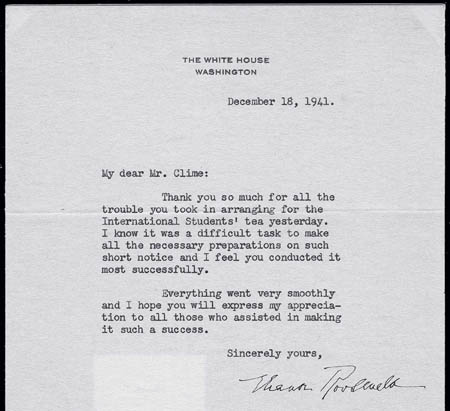
First line left indent question
(The reason I was searching for presidential letters is that I had a vague memory of seeing them previously with big indents.)
I wonder if making the indent larger than most or all of the “rags” sends the eye the message that “this is an intentional break, not an arbitrary byproduct of line lengths like those other spaces over there.”
Yes, something to that effect. It’s just that the uneven lines in FL/RR setting create a lot of visual noise on page… Especially loud when there are no word breaks, which causes a ‘hard rag’, or strongly uneven right edge of the column. Bordering on unbearable in those languages that have longer words than English. So a stronger signal may be necessary to indicate a paragraph break.
Okay, so I understand the reasoning now, but I don't find it compelling. Those 'other spaces over there' seems to me to have nothing to do with what is happening on the left margin, which is nothing out of the ordinary for normal reading. So why introduce something that is out of the ordinary? As for the ragged right producing visual noise on the page, I agree, and I think the deep indent on the left only increases that visual noise: it certainly seems to in the 1976 Olympics page spreads to which Maxim linked. I think one of the reasons why adding space between paragraphs and not indenting them became a popular solution for ragged right text is precisely because making a consistent left margin anchors the text better and reduces the noise. And, of course, Eric Gill's solution for ragged right setting in his essay on typography was to get rid of the paragraph breaks altogether and use a pilcrow instead. Again, I think this was to maintain a consistent left margin contra the variable rag.
Making the left margin more ragged than usual because the right margin is ragged seems exactly what one should not be doing.
> Indents are to separate paragraphs, and since there
> is no paragraph before the first (by definition), no
> indent is needed.
Another reason for not indenting the first paragraph is that visually it creates a weak start.
I rarely indent first paragraphs. Occasionally a client (or copy editor) will think it's an error, but after explaining my reasoning they've always dropped their objection.
> So why introduce something [large indent] that is out of the ordinary?
In some cases (not necessarily this one) it might be the designer thinking "this looks like the text in a zillion other printed pieces; how can I make it look a bit different?"
Frase, L. T. & Schwartz, B. J. (1979). Typographical cues that facilitate comprehension. Journal of Educational Psychology, 71(2), 197-206. doi: 10.1037/0022-0663.71.2.197
Abstract
Written sentences often contain several meaningful components (e.g., causes and effects or events in a sequence). Preliminary studies of technical documents showed that typographically segmenting these components improved raters' judgments of the comprehensibility of the information. In the present paper, this segmentation notion is generalized, suggesting that phrase segmentation and indentation can be used to facilitate comprehension. Five experiments were conducted (with a total of 72 college students or technical aides) in which Ss verified sentences by reading complex information in several technical passages. Meaningfully segmented and indented text resulted in 14–28% faster response times than standard text. Both segmenting and indenting significantly influenced performance; however, once a text had been meaningfully segmented, the addition of indentation cues did not significantly affect response time. These data shed light on persisting issues in typographic design, namely, whether there is an optimal length for lines and whether justified margins are desirable. Such factors appear to be of minor cognitive relevance. The critical variable is whether the format results in a display of easily encoded units, regardless of length or neatness of margins. (16 ref) (PsycINFO Database Record (c) 2012 APA, all rights reserved).
So if I'm reading that correctly, response time improved if text was divided into paragraphs by either 1) adding space between paragraphs, OR 2) by using indents. But doing both (space + indents) didn't add additional benefit beyond just using one of them. And that makes sense to me. Am I reading that right?
…adding space between paragraphs and not indenting them became a popular solution for ragged right text…
Fashions in paragraphing have come and gone.
The practice John refers to was the initial default of html on the Web, for some reason in opposition to the then current style in print. That is how it acquired its present popularity, with some new-media cachet as well.
Here is a previous implementation of a similar style, from the innovative Ladies Home Journal early in the Progressive era.
@JamesM: That’s what the abstract is saying, but I am reading the paper now and it is significantly more complex. There are actually 5 different experiments, each with different materials and results. I will be writing a review of this paper, but there is a lot of data to interpret. It may take some time. I will keep you posted.
I think I read somewhere that web browser default style was based on CERN's tech. writing style.